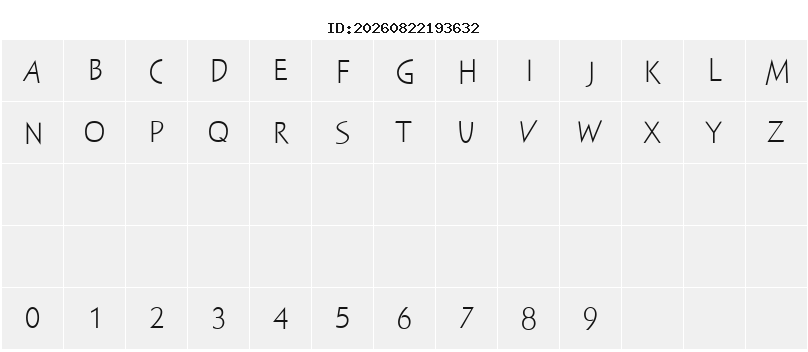
SayerSpiritual MN Preview
• Font Name: SayerSpiritual MN
• Full Font Name: SayerSpiritual MN
• Manufacturer: Mecanorma International .
About SayerSpiritual MN.ttf
SayerSpiritual MN.ttf is a modern, elegant sans-serif font designed for ultimate readability and visual harmony. Perfect for branding, headlines, web design, and print materials.